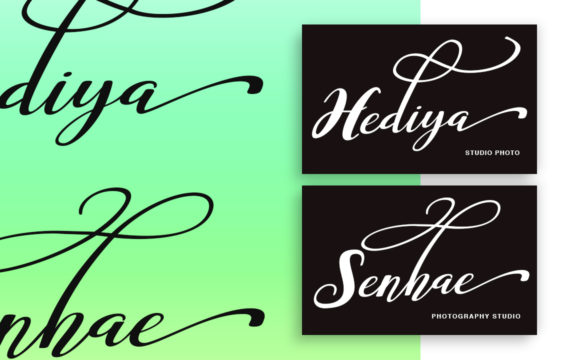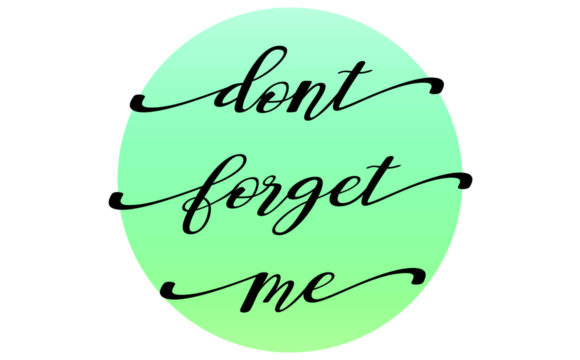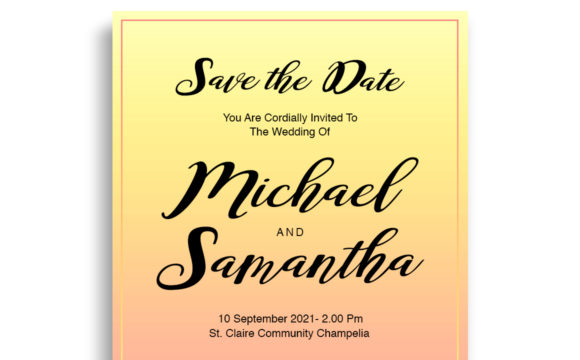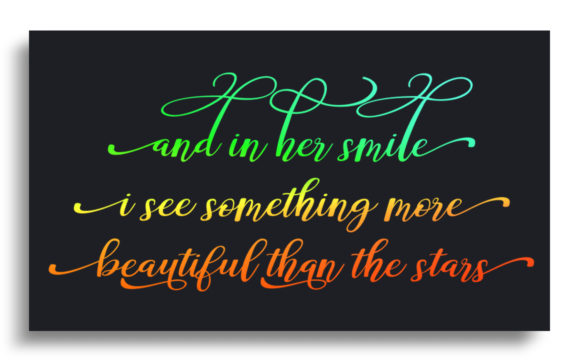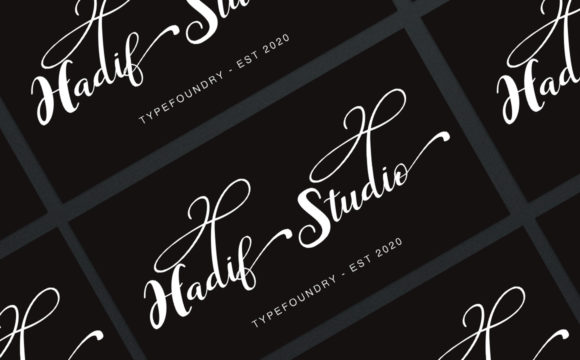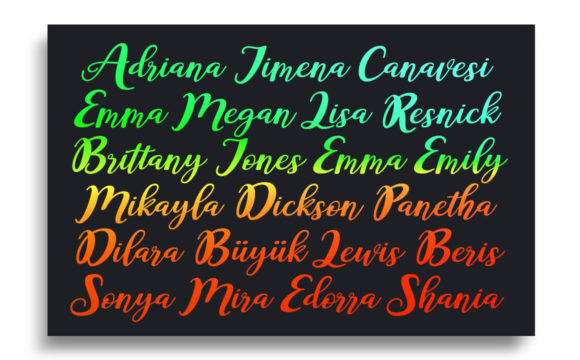
Briallana Script Font: Elevate Your Designs with Elegance and Sophistication
In the world of typography, a well-crafted script font can make all the difference in adding a touch of elegance and sophistication to your designs. Introducing Briallana Script, a lovely and delicate script font that exudes refinement and poise. This beautiful font is specifically designed for creative professionals who seek to infuse their work with a fresh and captivating aesthetic.
Aesthetics and Features
Briallana Script boasts a unique and intricate design, characterized by flowing lines, subtle curves, and delicate swashes. Its elegant appearance makes it an ideal choice for a wide range of design projects, from wedding invitations and branding materials to packaging and digital media. The font’s refined features are sure to captivate your audience and leave a lasting impression.
One of the standout features of Briallana Script is its PUA (Private Use Area) encoding. This means that you can easily access all glyphs and swashes, allowing you to experiment with different combinations and create stunning text arrangements. With PUA encoding, you can unlock the full potential of this beautiful font and take your designs to the next level.
Perfect for Creative Professionals
Briallana Script is a versatile font that caters to the needs of various creative professionals, including:
- Graphic designers seeking to add a touch of elegance to their branding materials, such as logos, business cards, and letterheads.
- Wedding planners and event coordinators looking for a beautiful font to adorn wedding invitations, save-the-date cards, and other stationery.
- Digital artists and crafters who want to add a delicate, hand-crafted feel to their digital art, illustrations, and crafts.
- Packaging designers aiming to create eye-catching and sophisticated packaging solutions for luxury products.
Why Choose Briallana Script?
With so many script fonts available, why choose Briallana Script? Here are just a few compelling reasons:
- Unique and elegant design: Briallana Script boasts a distinctive and refined aesthetic that sets it apart from other script fonts.
- PUA encoded for ease of use: With PUA encoding, you can effortlessly access all glyphs and swashes, making it easy to experiment and create stunning text arrangements.
- Versatile and adaptable: Briallana Script is suitable for a wide range of design projects, from digital media to print materials.
- High-quality and refined: This font is crafted with attention to detail, ensuring a high level of quality and sophistication.
Tips for Using Briallana Script
To get the most out of Briallana Script, here are some expert tips:
- Experiment with different sizes and arrangements: Briallana Script looks stunning in various sizes and arrangements. Don’t be afraid to experiment and find the perfect combination for your design.
- Pair with complementary fonts: Combine Briallana Script with complementary fonts to create a harmonious and visually appealing design.
- Pay attention to kerning and spacing: To ensure optimal readability, pay attention to kerning and spacing when using Briallana Script.
In conclusion, Briallana Script is a beautiful and elegant script font that is sure to elevate your designs to new heights. With its unique aesthetic, PUA encoding, and versatility, this font is an excellent choice for creative professionals seeking to add a touch of sophistication and refinement to their work. Whether you’re designing wedding invitations, branding materials, or digital art, Briallana Script is the perfect choice for those who demand the best.